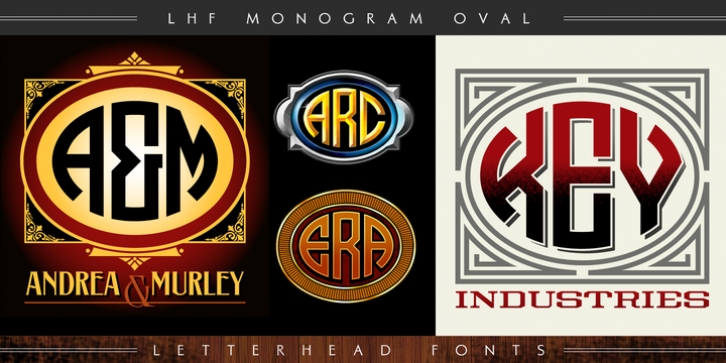
LHF Monogram Oval was designed by John Davis and published by Letterhead Fonts. LHF Monogram Oval contains 4 styles and family package options.
Set includes 4 fonts that work together to create quick and professional monogram designs.
Each font contains both Regular (uppercase) and Shadow (lowercase) letters. LHF Monogram Oval 1 includes the entire alphabet for the left side of the monogram. LHF Monogram Oval 2 contains the alphabet for the center. LHF Monogram Oval 3 contains the alphabet for the right side of the monogram.
Use the uppercase keys to generate the regular letters, and the lowercase keys for the shadow letters. LHF Monogram Oval Frames contains a variety of borders and backgrounds to use with the letters. Printable key guide included.